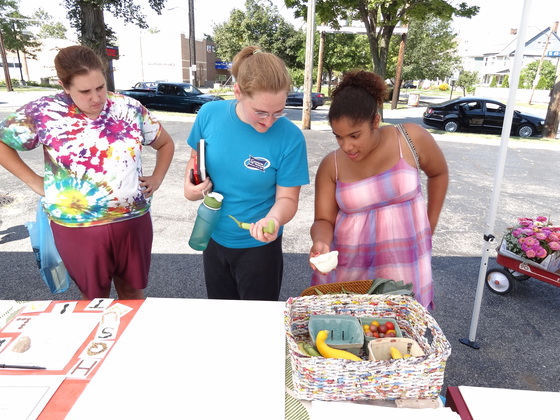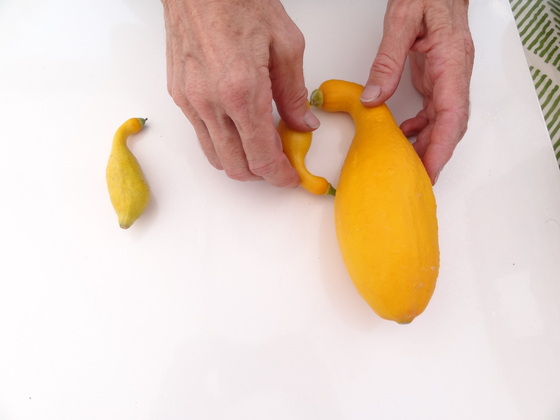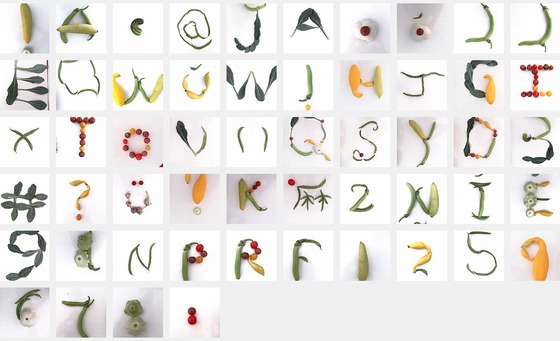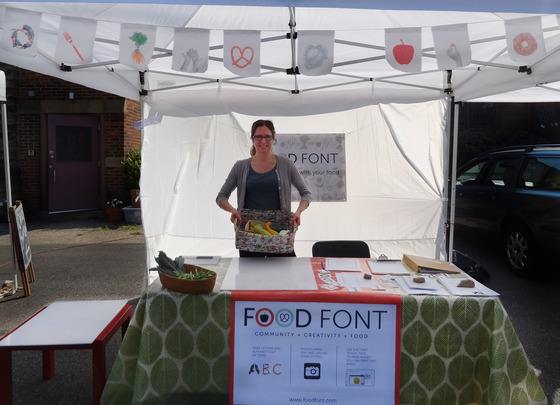
This past Saturday Food Font was at Gordon Square Farmer's Market in Cleveland, OH. The mood was relaxed and it was hot, but people had a great time making letters out of food from two local farms. We made the first alphabet that can be used for English as well as Spanish.
We used the Spanish alphabet (alfabeto Espanol) - for the event - so there were more letters to make. Some of the letters had accents on them, and there also was some extra punctuation marks to make. I got a chance to eat a really good tamale, and meet the other farmers and vendors at the market.
The vegetables were from:
GGG (A guy, a girl, and a garden) – Tomatoes, kale, garlic, beans
Maggie’s Farm – Squash, cucumber, eggplant.
One exciting development for the project is that some student teachers will be doing the Food font activity in some Cleveland schools. The student teachers are part of a class at the Cleveland Institute of Art, and I will be doing the first "Food Font Workshop for Teachers" of how to do the Food Font activity in the classroom. It will be exciting to see the project being done with students and used in the classroom this Fall.